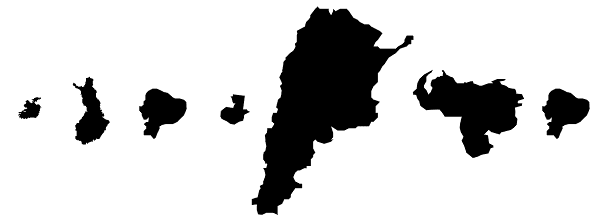
Patriot Kit
Make your own camouflage-styled pattern. The patriot kit is a complete family containing 6 fonts to make your very own camouflage patterns.